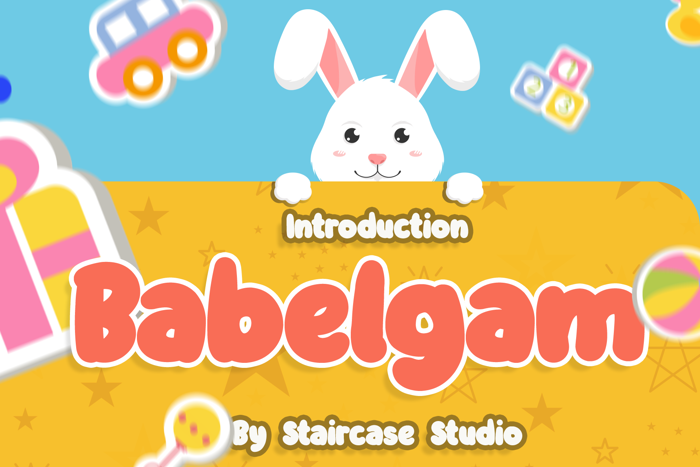
Babelgam Font
Babelgam font with new and modern styles. A collection of letters and numbers suitable your projects also great for Logotype, Branding Design, Logo Design, Digital Lettering Arts, T-Shirt/Apparel, Poster, Magazine, Signs, Advertising Design, and any design needs.